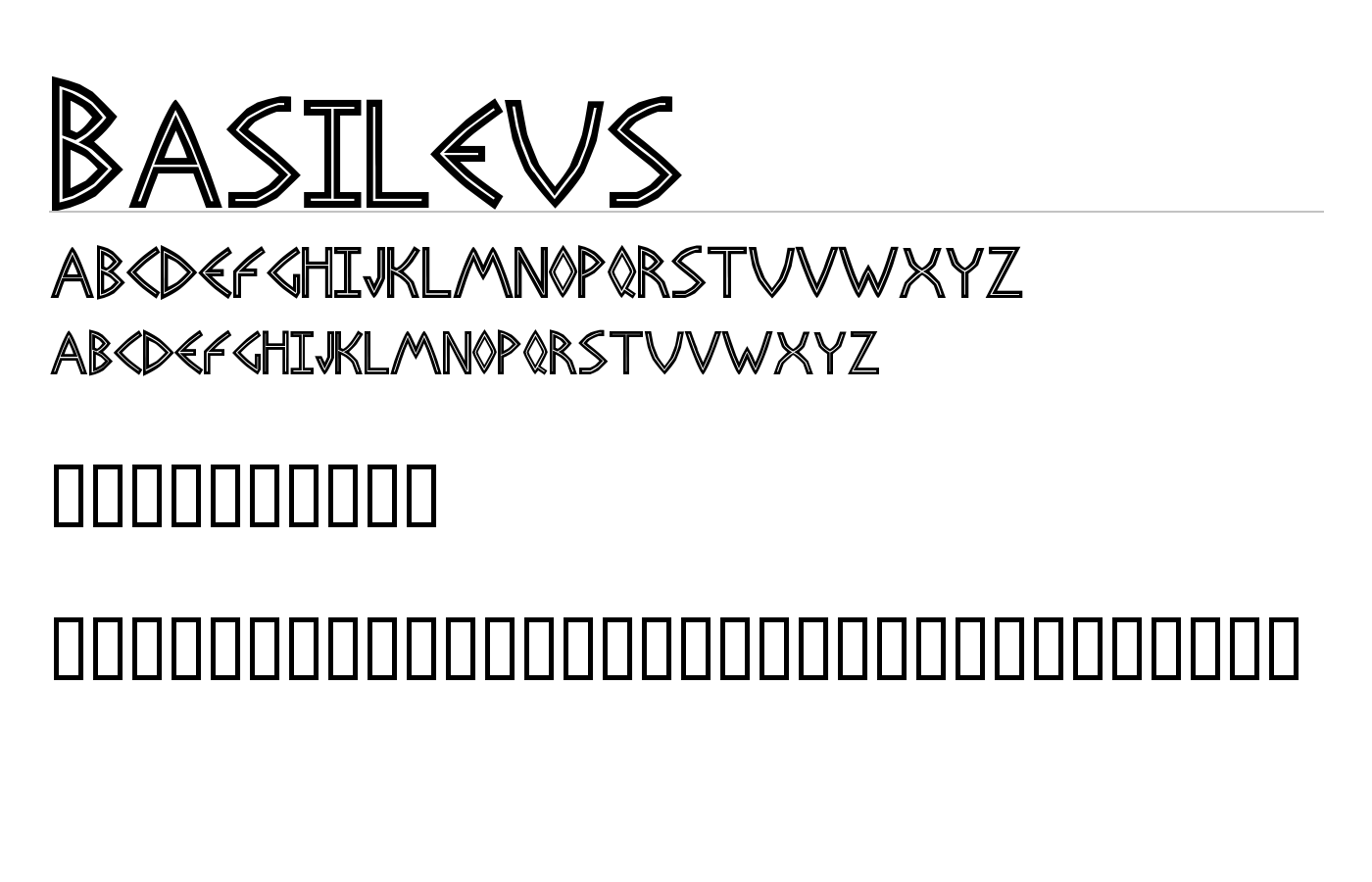
Basileus is a decorative sans serif font with a bold, geometric style that features sharp angles and distinctive inner lines, giving it a strong, artistic flair reminiscent of ancient or tribal motifs. Its tall, narrow letterforms and unique shapes make it ideal for eye-catching headlines, logos, or creative projects that need a dramatic and unconventional look. This font works best where a bold statement is desired, such as posters, branding, or display text, rather than for body copy.
Basileus Font
About Basileus Font